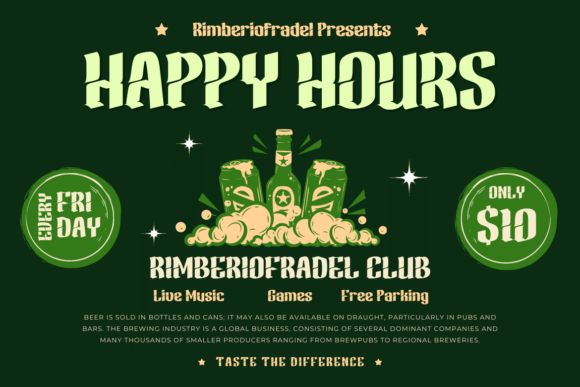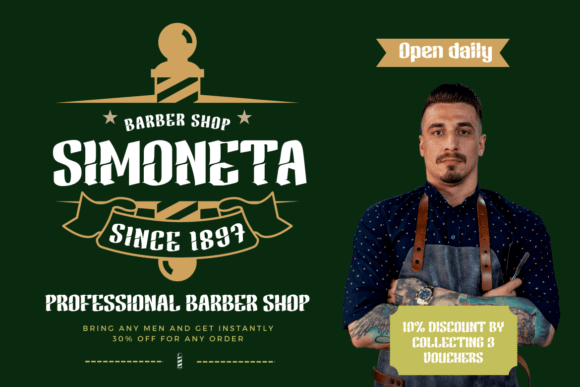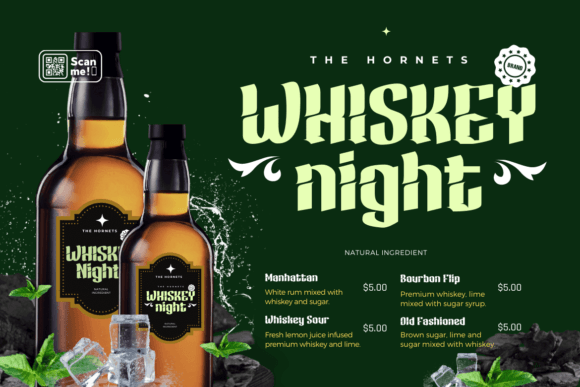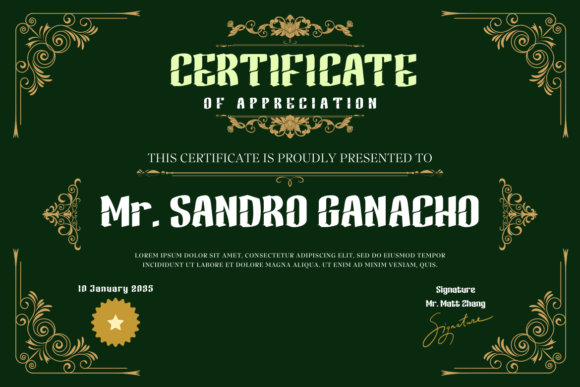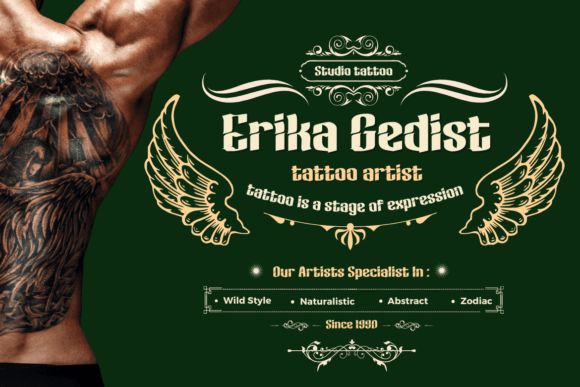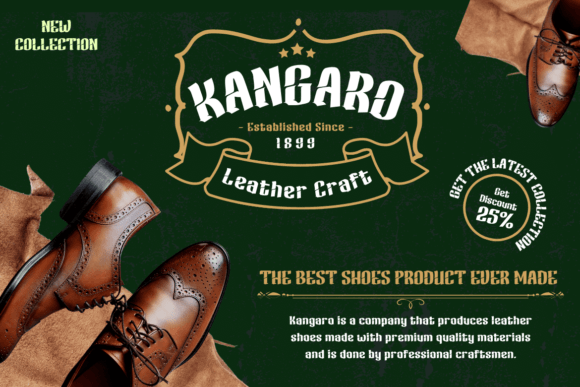
Introduction to Kinure Font
Kinure is a cool and stylish blackletter font.
This font evokes a strong, confident personality Whether youโre creating a vintage-inspired project or want to add a bold classic look to your visuals, this font is a perfect choice.
Kinure Font offers exceptional quality and versatility, making it a valuable addition to your design toolkit. Whether you’re creating for personal projects or commercial use, Kinure Font delivers professional results.